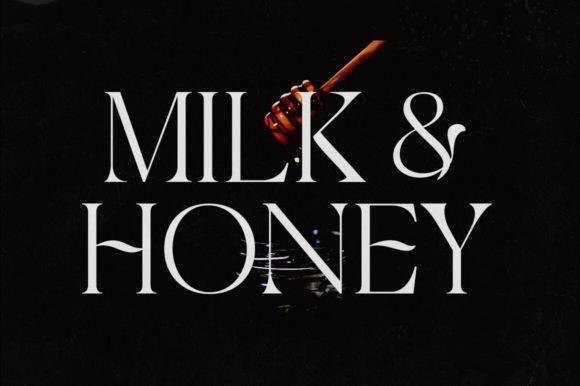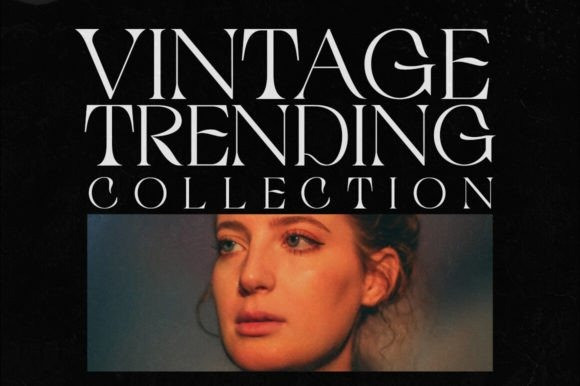
Rigata Font
Rigata Font is an elegant and luxurious serif font perfect for invitations, logos, branding, greetings, social media themes and wedding invitation designs. It is also a great typeface for titles because of its smooth design and attractive appearance.